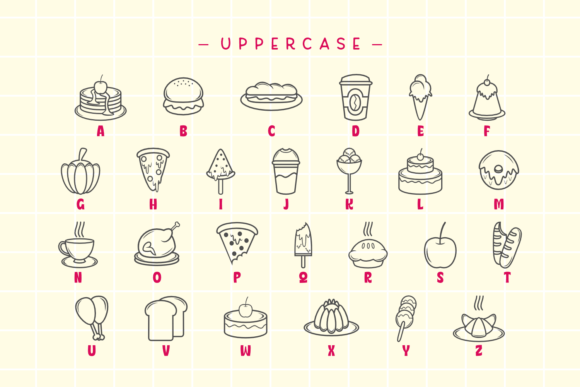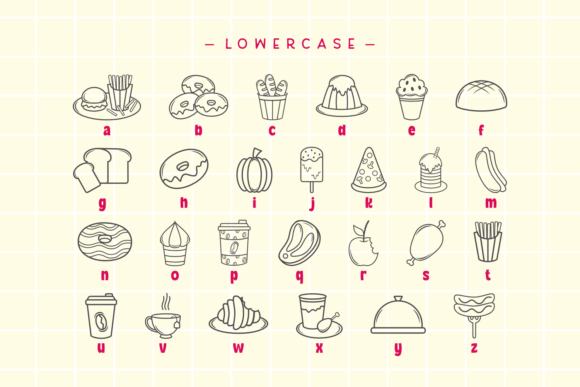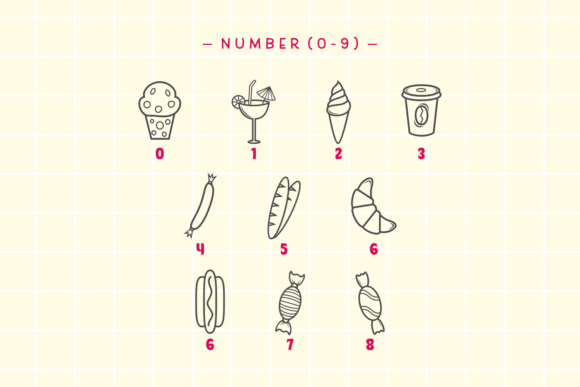
Introduction to Favorite Food Font
Favorite Food Dingbats is a playful and tasty collection of symbols and icons that represent your most loved foods.
With simple and fun images, this dingbat font adds a delicious touch to your designs Perfect for menus, food-themed projects, or anything related to culinary delights, it brings a delightful flair to your creations.
Key Features of Favorite Food Font